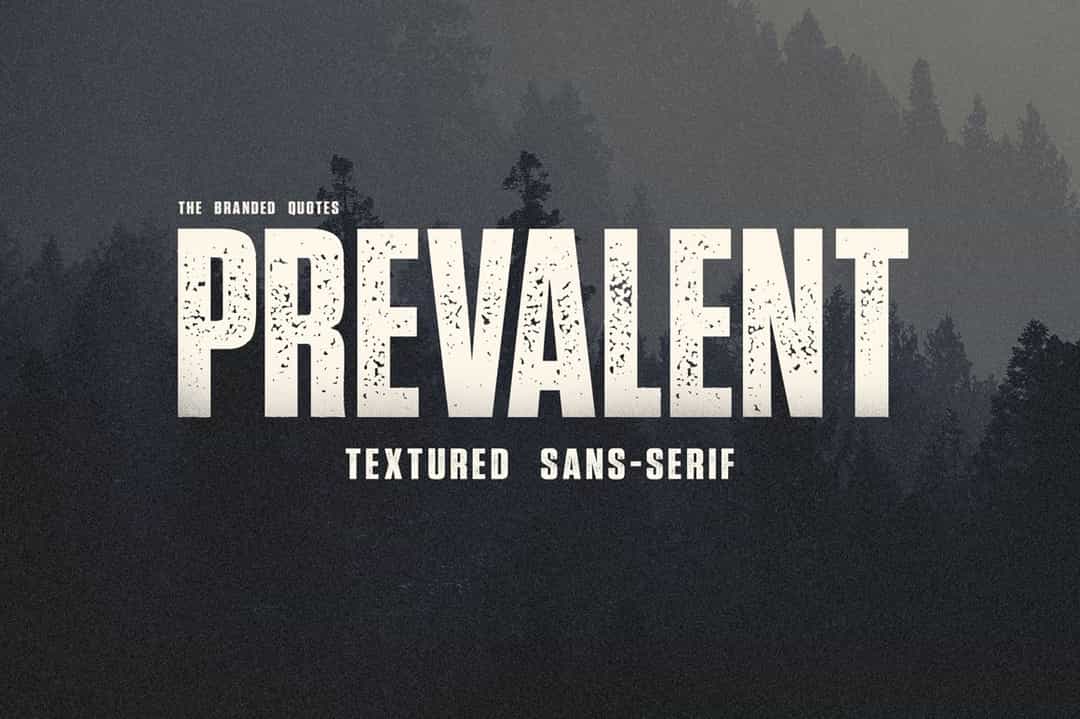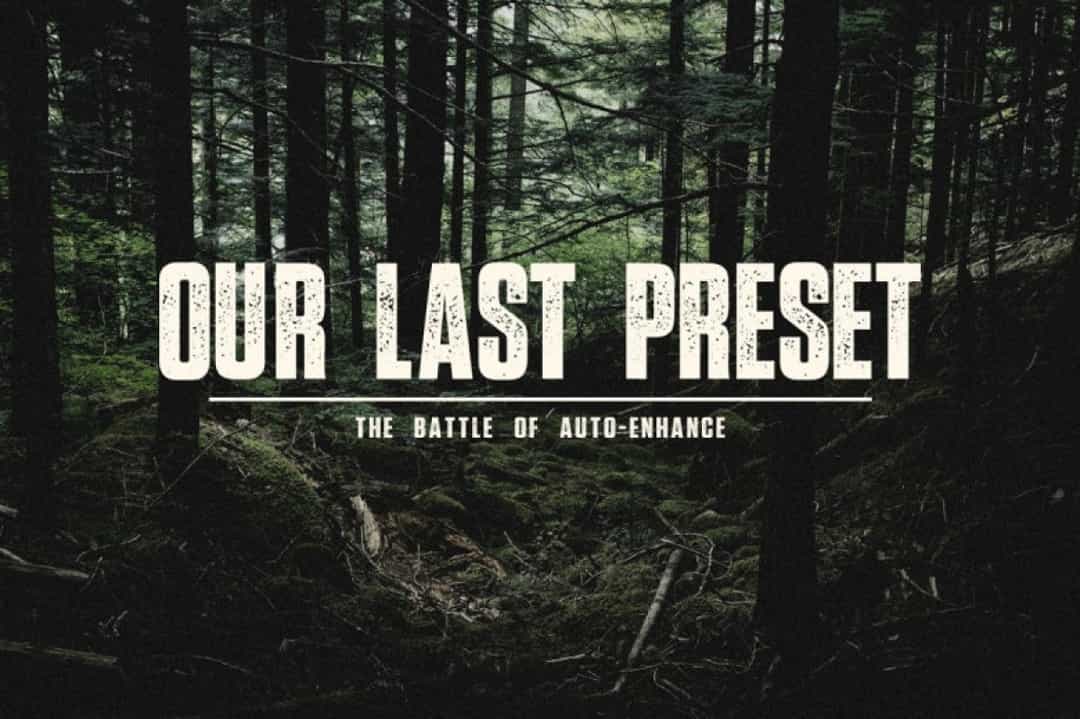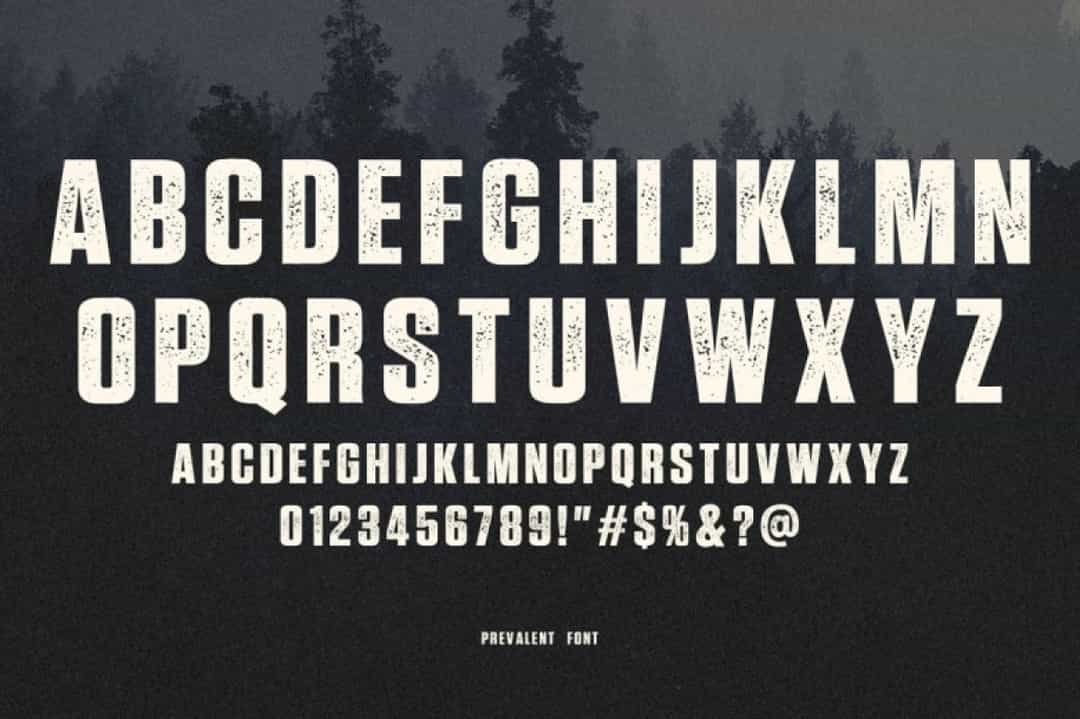
Prevalent is an elegant Sans Serif font with distress and texture effects for added visual interest in any project. Engraved onto acrylic provides an old-school and elegant aesthetic which works perfectly in macro photography, portrait photography, wide-angle shots or any other setting that needs an elegant design element.